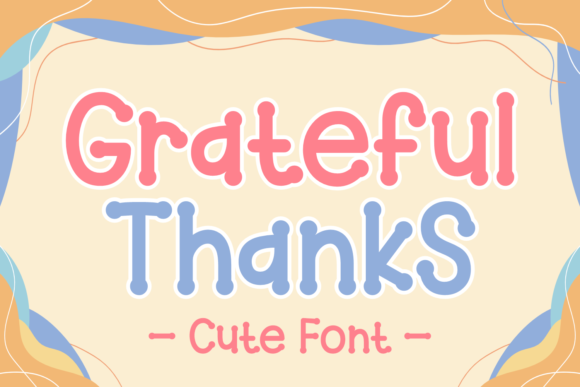
Grateful Thanks Font: A Lovely Display Font for Your Creative Projects
The Grateful Thanks font is a beautiful and friendly display font that can add a touch of warmth and personality to your creative projects. Its charming characters make it perfect for use on children-related items, product packaging, logos, menus, or any text that needs to stand out from the background. In this article, we’ll take a closer look at the Grateful Thanks font, its features, and how you can use it to elevate your designs.
What is Grateful Thanks Font?
Grateful Thanks is a lovely display font designed to bring a sense of friendliness and approachability to your text. Its unique character set is carefully crafted to convey a sense of gratitude and warmth, making it ideal for projects that require a personal touch. The font’s playful and whimsical feel makes it perfect for use on a wide range of applications, from children’s products to branding and advertising materials.
Key Features of Grateful Thanks Font
- Unique Character Set: The Grateful Thanks font features a distinctive character set that is both playful and elegant.
- Friendly and Approachable: The font’s friendly characters make it perfect for use on children-related items and other projects that require a personal touch.
- Highly Versatile: The Grateful Thanks font can be used on a wide range of applications, from product packaging to logos, menus, and more.
- Easily Readable: The font is designed to be highly readable, even at small sizes, making it perfect for use on a variety of materials.
Use Cases for Grateful Thanks Font
The Grateful Thanks font is a versatile font that can be used on a wide range of applications. Here are some use cases where the font can shine:
Children-Related Items
The Grateful Thanks font is perfect for use on children-related items such as:
- Children’s books and educational materials
- Kids’ clothing and accessories
- Toys and games
- Children’s party decorations and invitations
Product Packaging
The font can also be used on product packaging to add a touch of warmth and personality to your brand:
- Food and beverage packaging
- Cosmetics and skincare packaging
- Gift wrapping and stationery
Logos and Branding
The Grateful Thanks font can be used to create unique and memorable logos and branding materials:
- Logos and letterheads
- Business cards and brochures
- Social media graphics and posts
Menus and Signage
The font can also be used on menus and signage to add a touch of personality to your restaurant or business:
- Restaurant menus and signage
- Event menus and programs
- Directional signage and banners
Tips for Using Grateful Thanks Font
Here are some tips for using the Grateful Thanks font effectively:
Choose the Right Size
The Grateful Thanks font is designed to be highly readable, even at small sizes. However, it’s essential to choose the right size for your project to ensure that the text is clear and legible.
Pair with Other Fonts
The Grateful Thanks font can be paired with other fonts to create a unique and visually appealing combination. Try pairing it with a clean sans-serif font for a contrasting look.
Experiment with Colors
The Grateful Thanks font comes in a range of colors, but you can also experiment with different colors to match your brand or project’s color scheme.
Use on High-Quality Materials
To get the best results from the Grateful Thanks font, use it on high-quality materials such as premium paper, cardstock, or vinyl.
The Grateful Thanks font is a lovely display font that can add a touch of warmth and personality to your creative projects. Its friendly characters make it perfect for use on children-related items, product packaging, logos, menus, or any text that needs to stand out from the background. With its highly versatile design and range of use cases, the Grateful Thanks font is an excellent choice for designers, marketers, and businesses looking to elevate their brand and creative projects.